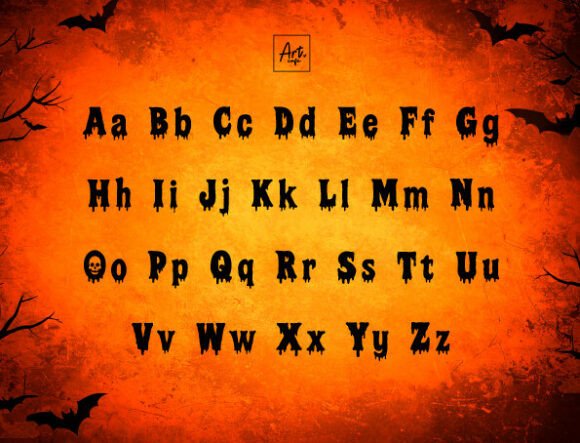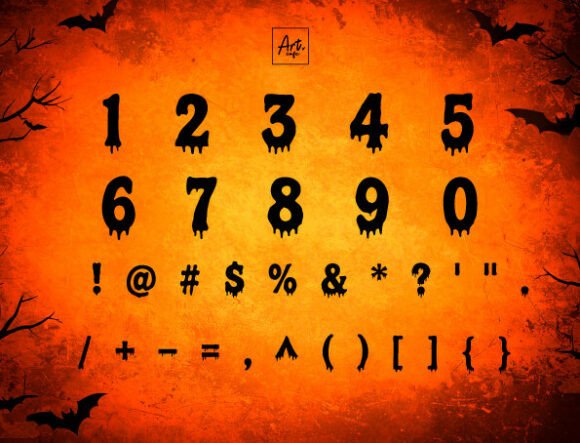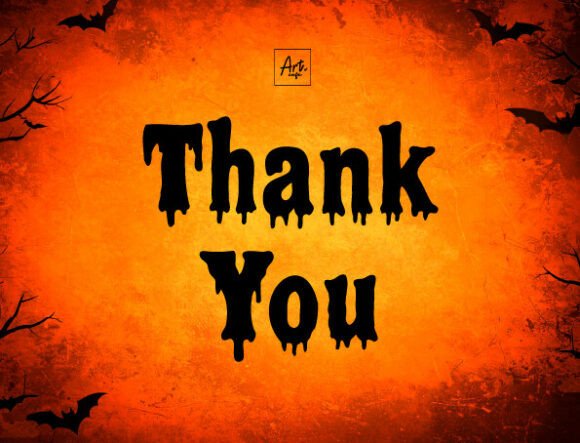
Unleash the Spookiness with Haunted Halloween Font 🎃
As the spookiest time of the year approaches, designers and crafters are on the lookout for the perfect font to add a terrifying touch to their Halloween projects. Look no further than the Haunted Halloween – Horror Font, a creepy, dripping Halloween display font that’s sure to send chills down the spine. This bold and scary typeface features haunted-style letters that look like dripping blood or slime, making it the perfect addition to any Halloween design.
The Perfect Font for Spooky Season Designs
Haunted Halloween – Horror Font is designed to bring a terrifying touch to any Halloween project. Whether you’re crafting Halloween party invitations, trick-or-treat bags, t-shirt designs, spooky signage, posters, stickers, or digital art, this font is your go-to choice. Its unique and eerie style is sure to grab attention and leave a lasting impression.
Key Features of Haunted Halloween Font
- Creepy and Dripping Effect: The font features a dripping effect that resembles blood or slime, adding a spooky and eerie feel to your designs.
- Bold and Scary Typeface: The bold and scary typeface is perfect for creating eye-catching designs that scream spooky and fun.
- Versatile and Easy to Use: The font is easy to use and can be applied to various design projects, from printables to digital art.
Ideal Uses for Haunted Halloween Font
Haunted Halloween – Horror Font is perfect for a wide range of Halloween projects, including:
- Halloween Sublimation Designs: Create stunning sublimation designs for Halloween-themed products, such as t-shirts, mugs, and more.
- Printable Halloween Posters: Design eye-catching posters for Halloween parties, haunted houses, or spooky events.
- Party Decor and Banners: Add a spooky touch to your Halloween party decor and banners with this creepy font.
- Halloween SVG Projects: Use the font to create spooky SVG files for cutting machines, perfect for DIY Halloween decorations.
- Haunted House Signs: Create eerie signs for haunted houses, haunted trails, or spooky attractions.
Why Choose Haunted Halloween Font?
With Haunted Halloween – Horror Font, you can:
- Create Unique and Spooky Designs: Stand out from the crowd with this unique and creepy font that’s sure to grab attention.
- Save Time and Effort: With a ready-to-use font, you can save time and effort in designing your Halloween projects.
- Add a Terrifying Touch: Bring a terrifying touch to your designs and make them scream spooky and fun.